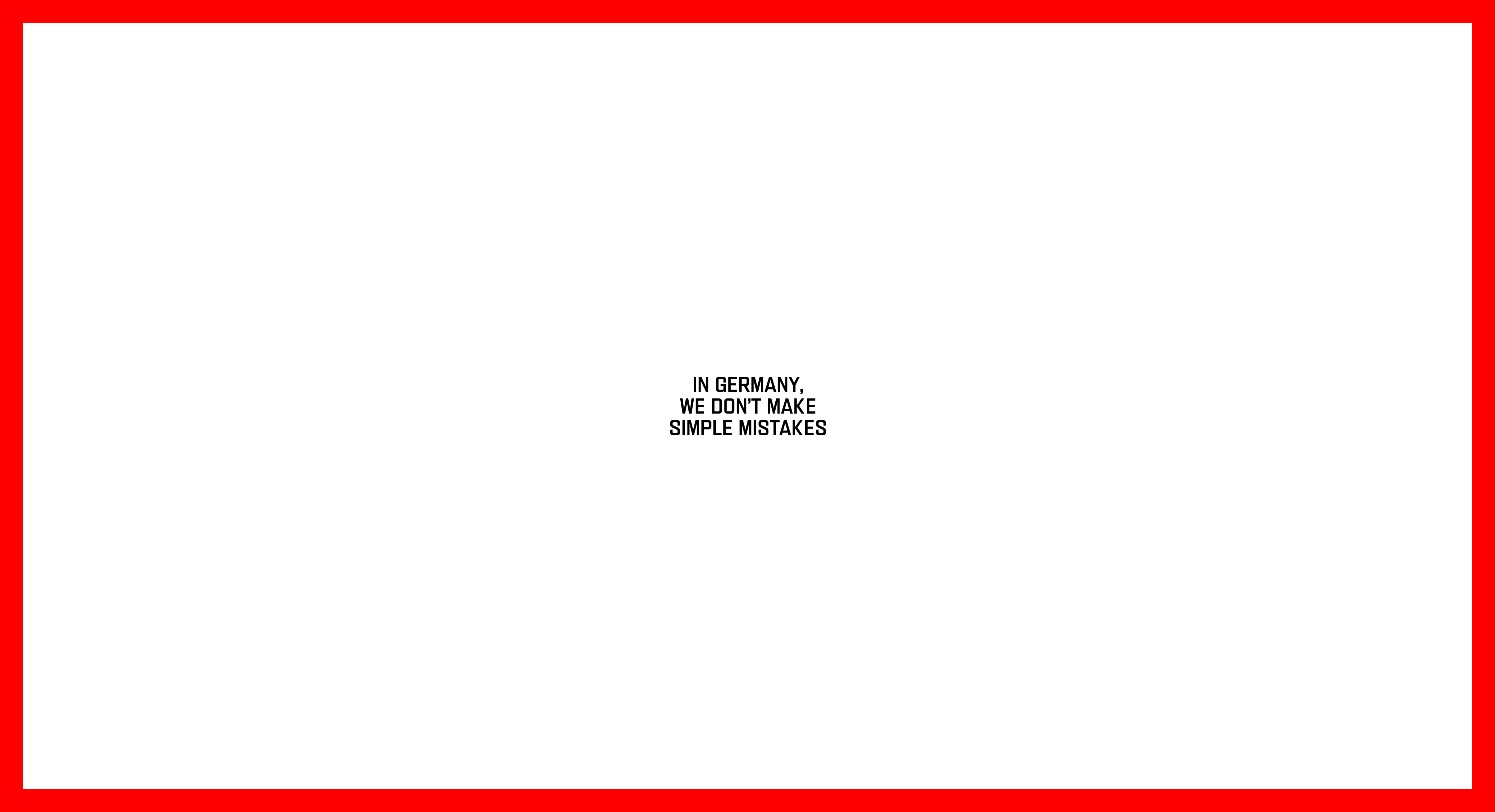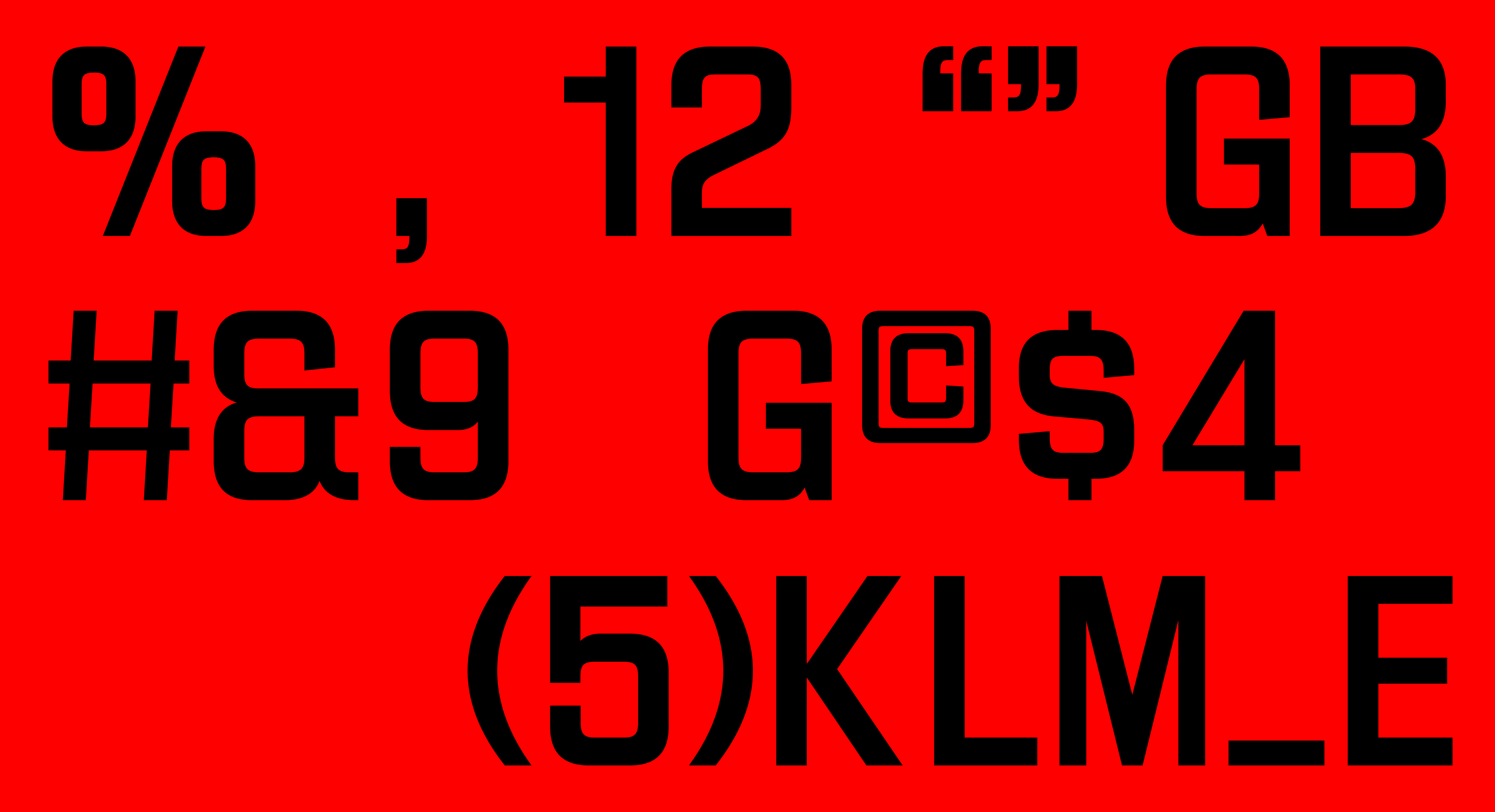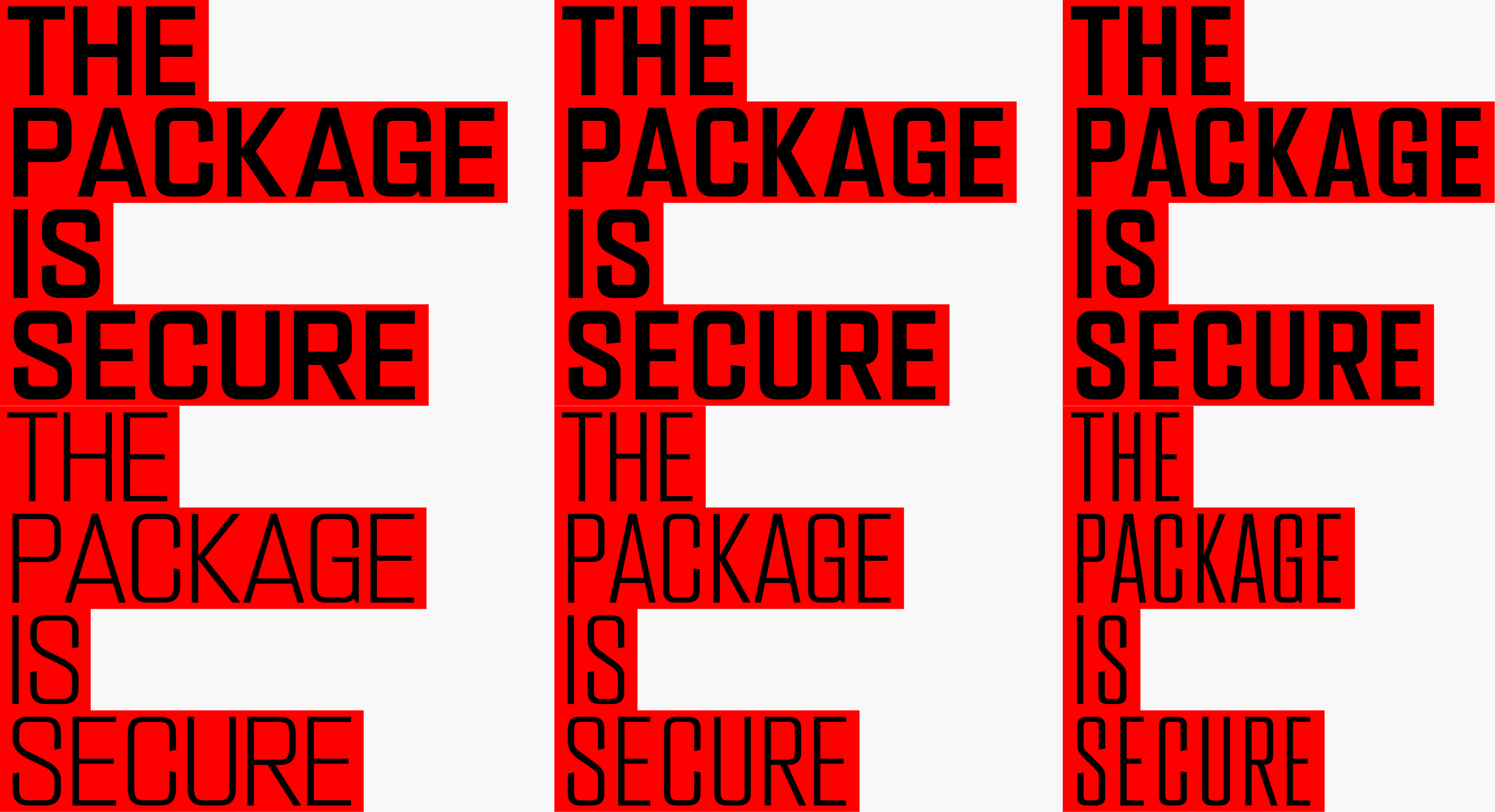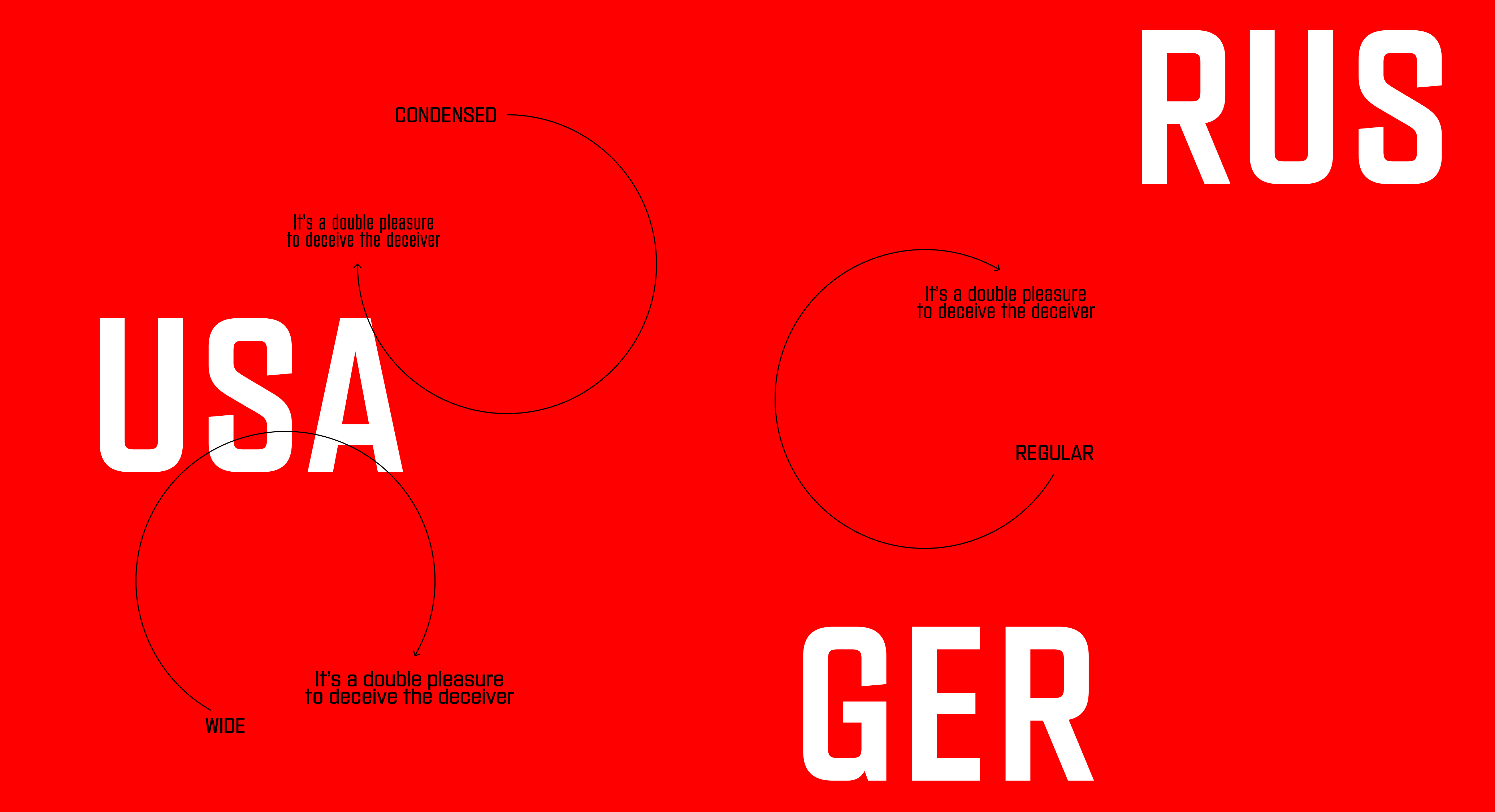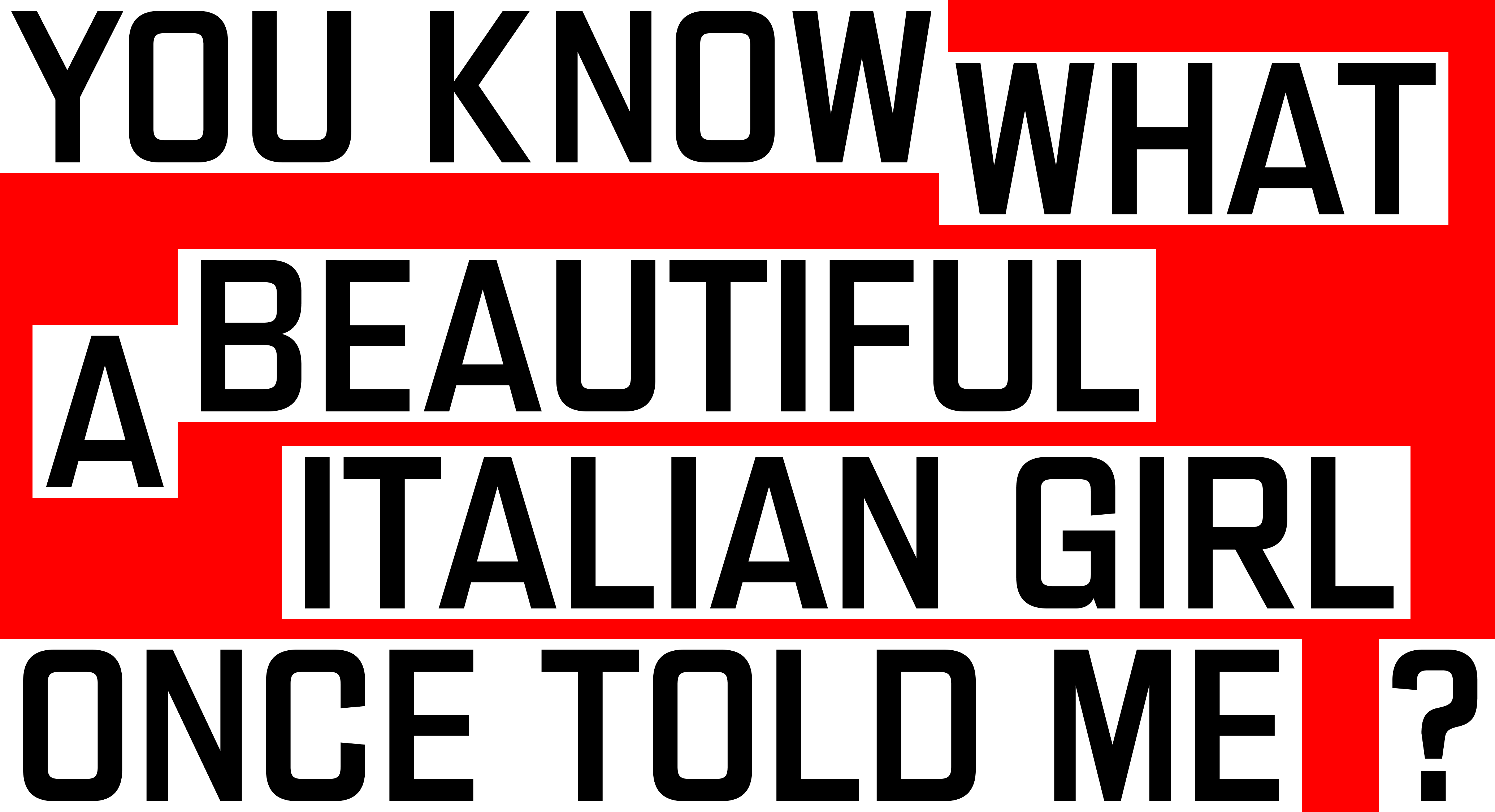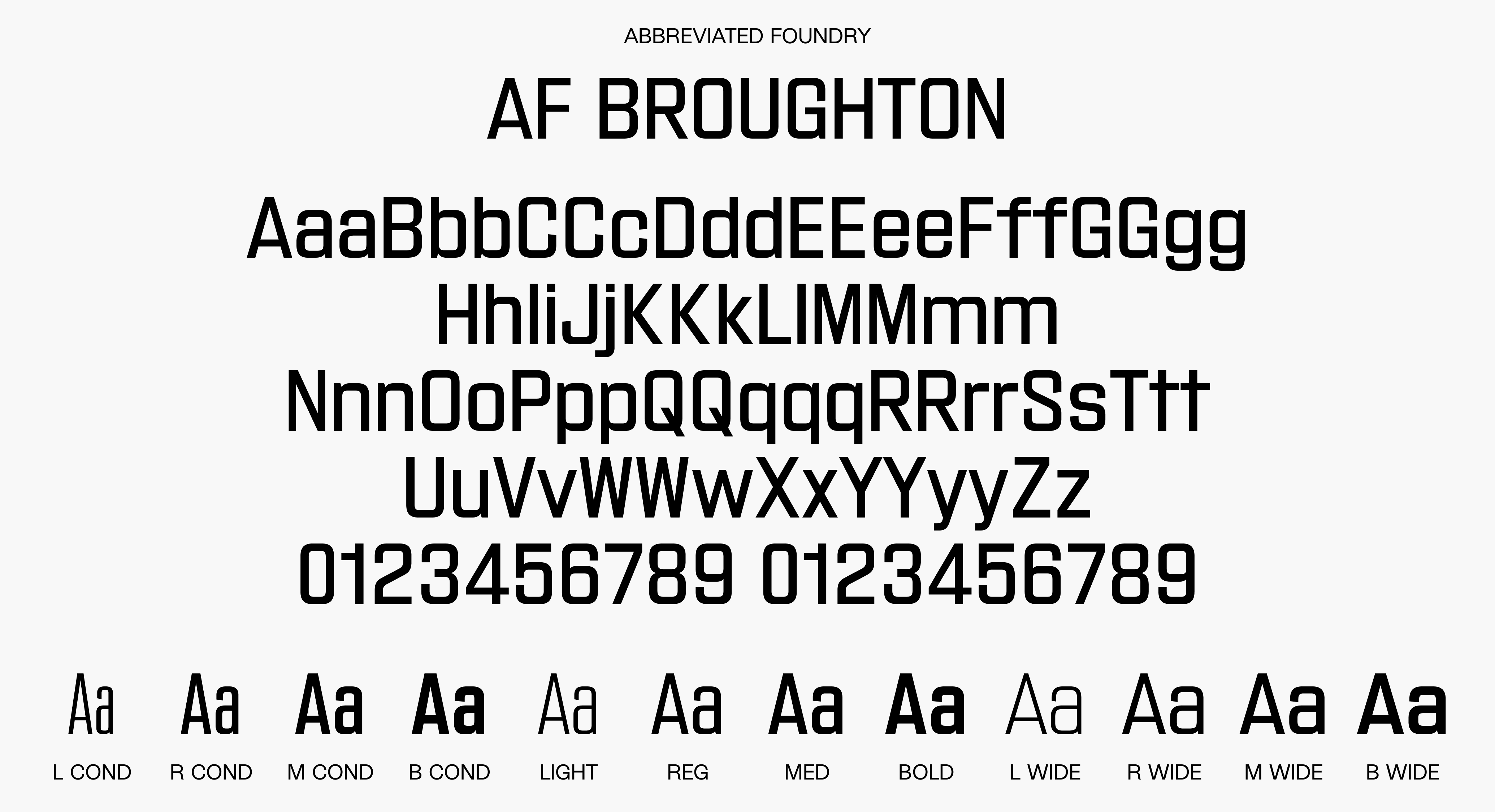
AF Broughton
AF Broughton is built to withstand a nuclear blast. With its brutalist construction, it’s easy to imagine this tough sans serif typeface being formed from concrete and rebar. From Condensed to Wide, Broughton has no problem slipping through holes in barbed wire fences and iron curtains or blasting straight through them.